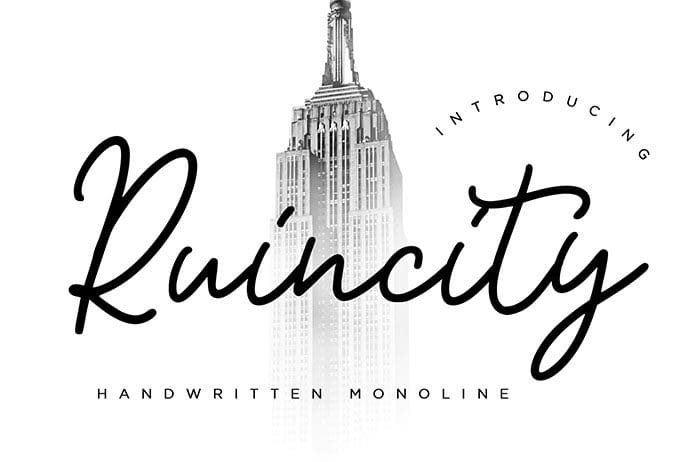
Ruincity Script Font
Ruincity is an awesome Script Font with natural movement. Ruincity is perfect for branding projects, logo, wedding designs, product designs, and more. Thanks to Creatype Studio for sharing this font! Take a look at this portfolio for more of his stunning fonts.